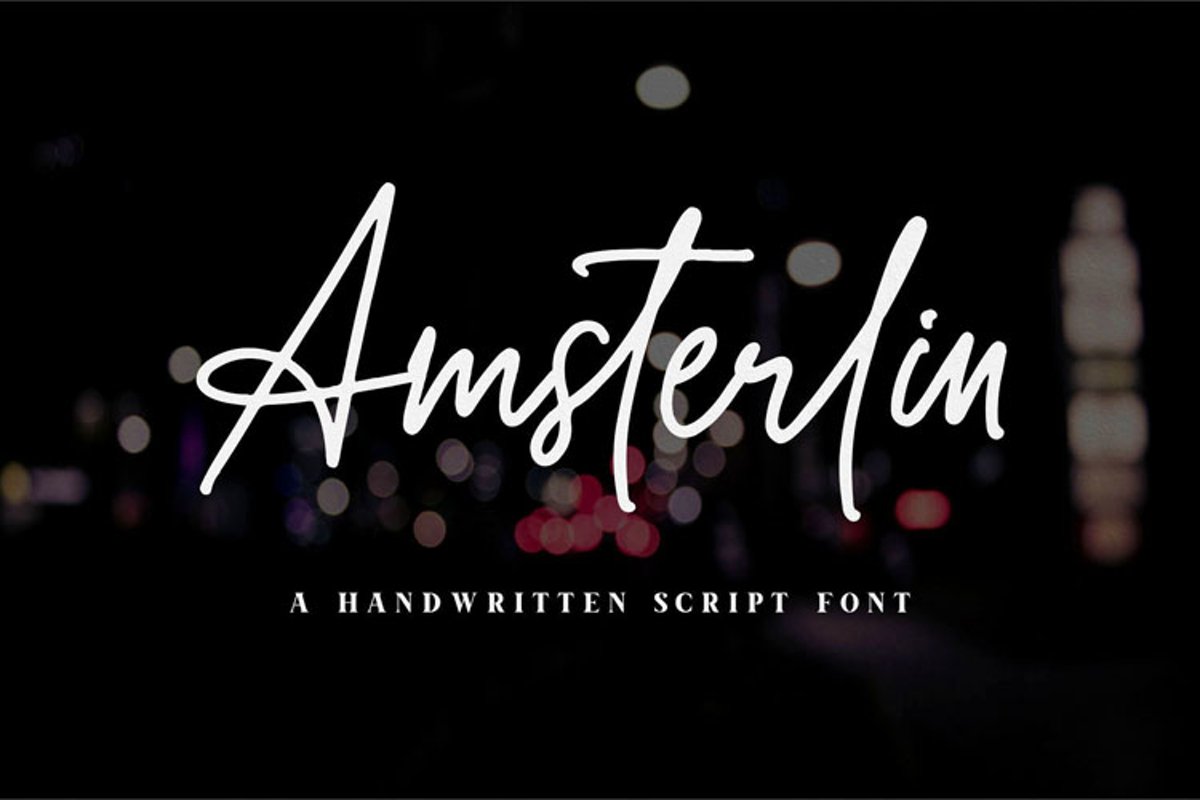
Amsterlin//Handwritten Script Font
Amsterlin
Amsterlin a handwritten script font with magical pressure. i hope this font is perfect for creating signature logos and watermarks for photography studio or wedding invitation, Lable, Logo, Magazine best for initial or branding logo signature.I madefully with love and unique !!Amsterlin includes a full set of beautifull hand letters, numerals, a large range of punctuation and ligatures. Giving realistic hand-lettered style. What do you get, darling?You will get: